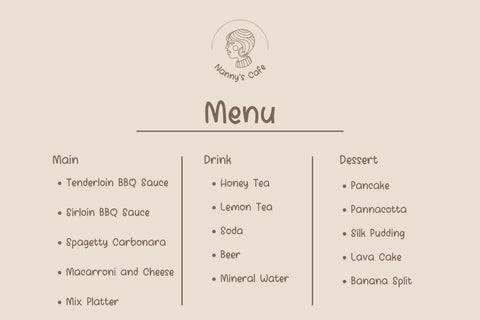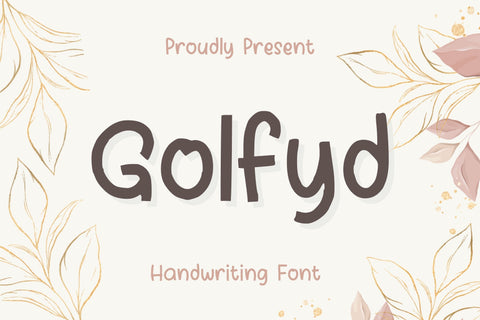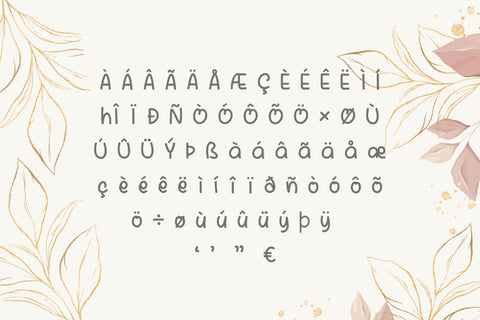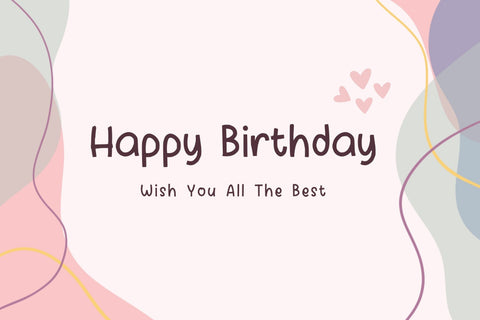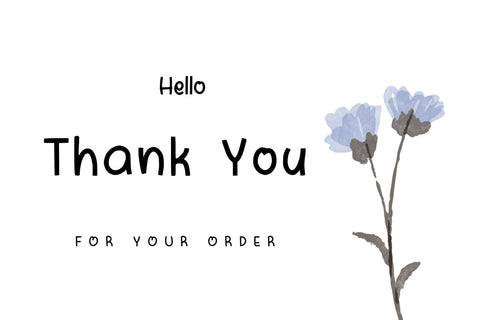
Golfyd Handwriting Font
Golfyd is a friendly and casual handwritten font. Whether you're using it for crafts, digital design, presentations, or making greeting cards, this font has the potential to become your favorite go-to font, no matter the occasion!